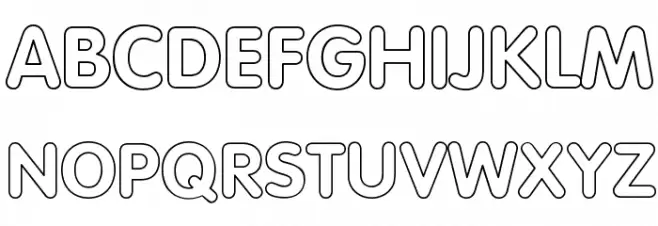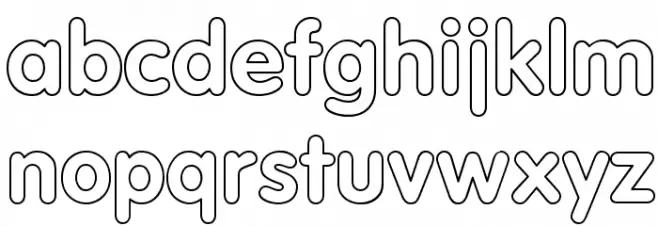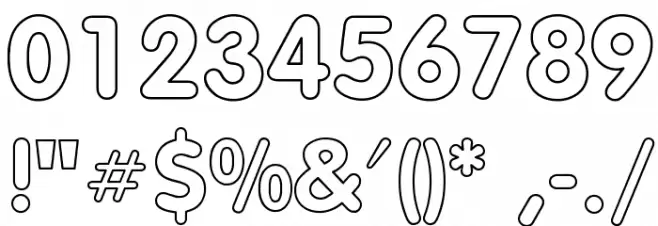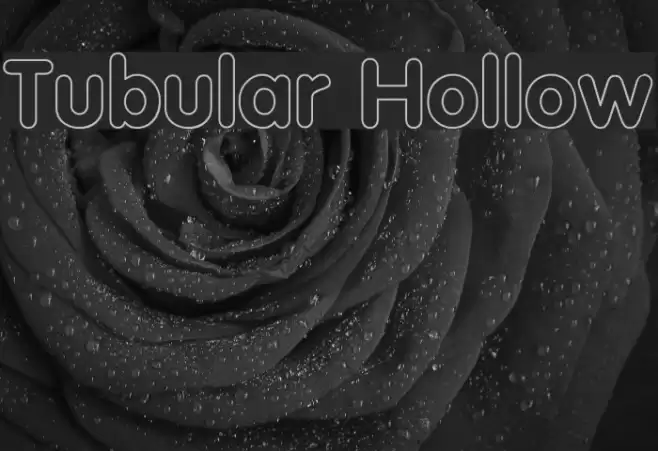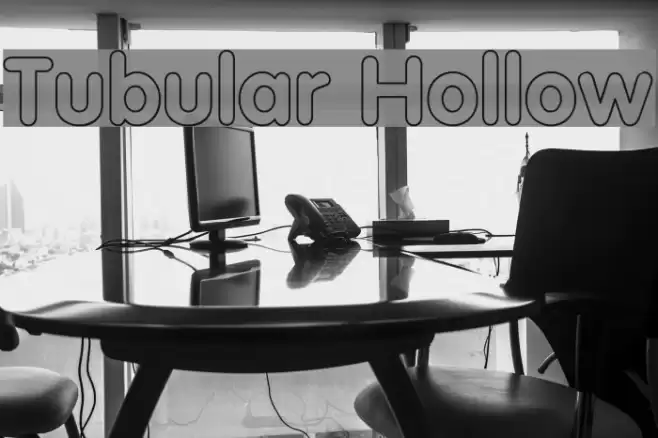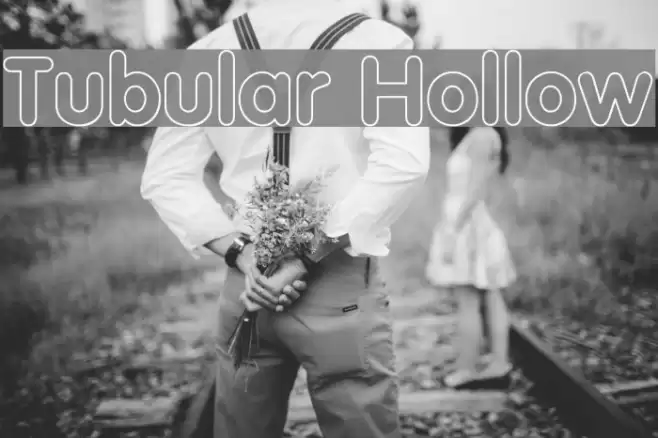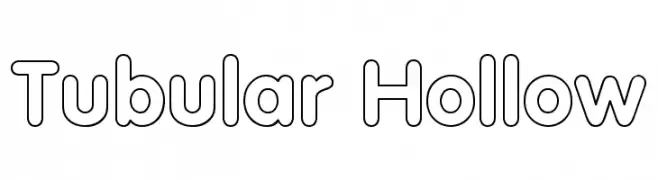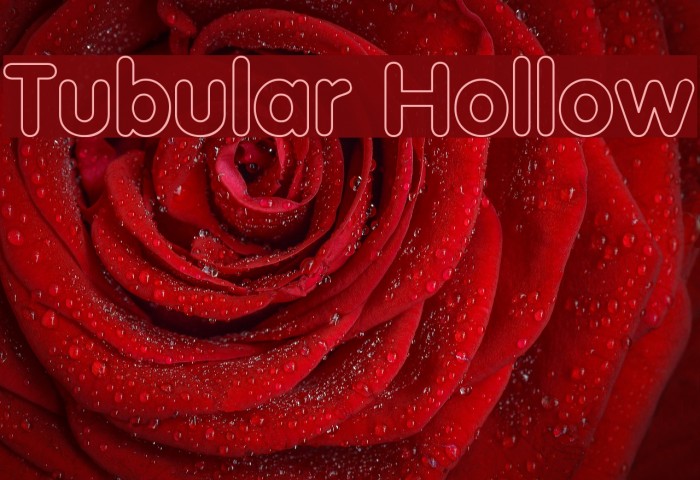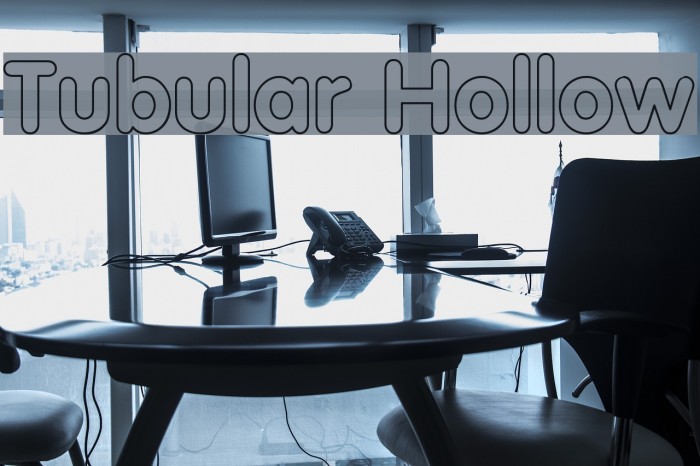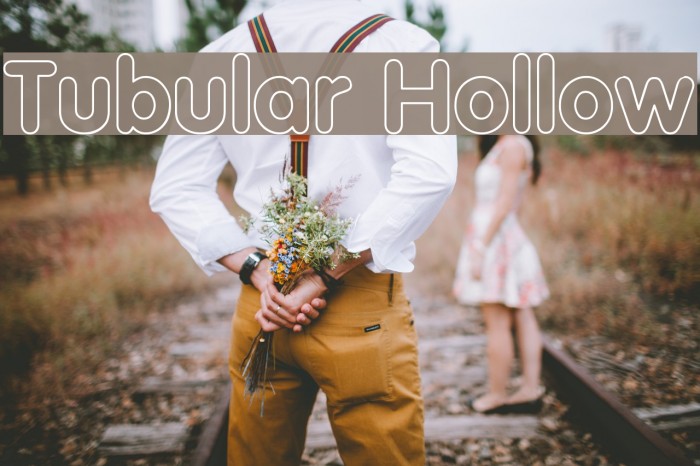
Tubular Hollow
This font features a playful, tubular design with hollow interiors, giving it a unique and eye-catching appearance. The characters are rounded and bold, with consistent stroke widths that create a uniform look. The hollow nature of the letters adds a sense of lightness and openness, making it ideal for designs that require a modern and fun aesthetic. The uppercase and lowercase letters maintain a consistent style, while the numerals and special characters are clearly defined and easy to read. This font is perfect for projects that aim to stand out with a bold yet approachable style.
A playful, tubular font with hollow interiors and rounded, bold characters.
- Proposed Projects: Ideal for posters, logos, children's books, and any design requiring a fun and modern touch.
- Use Case: Headlines, Logos, Posters